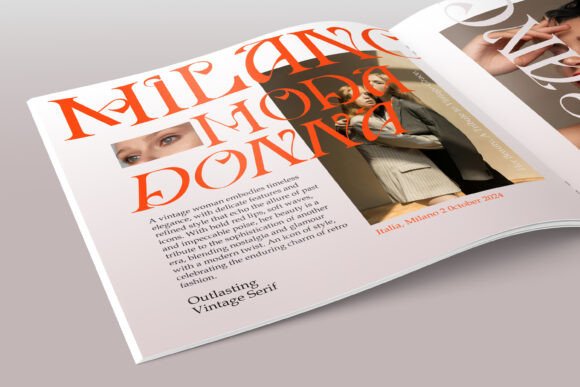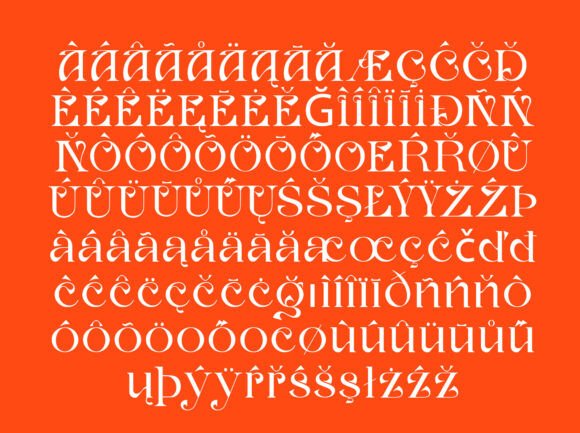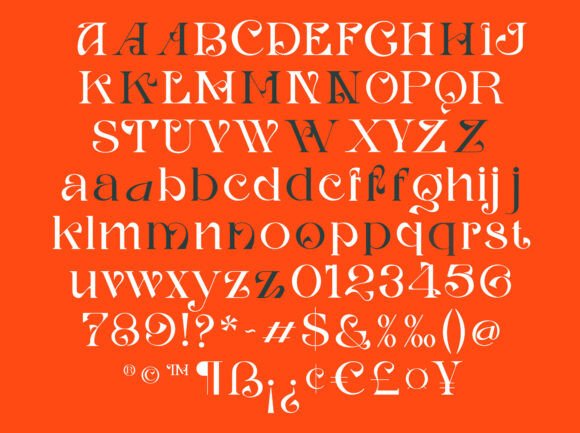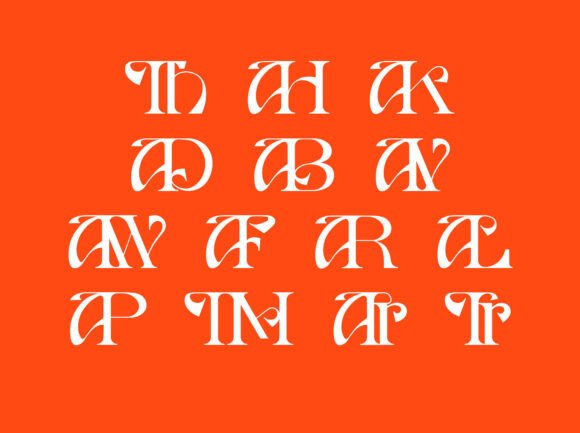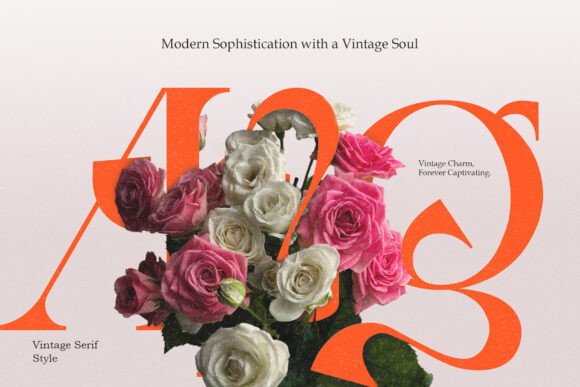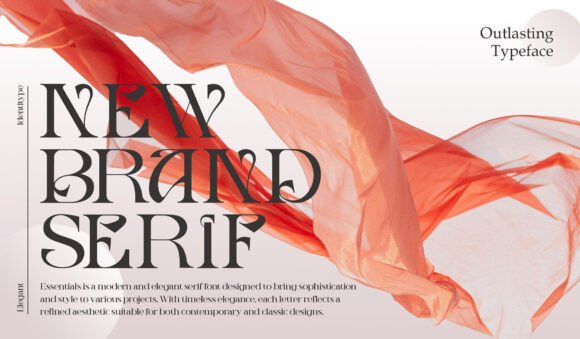
Introduction to Outlasting Font
Remember that moment when you’re brainstorming ideas for a new project, and the perfect font suddenly pops into your head? That feeling of excitement and inspiration is exactly what the Outlasting Font is designed to evoke. This stunning, vintage-inspired modern serif font is the result of meticulous craftsmanship by Myron Studio, and it’s about to revolutionize the way you approach your creative projects.
As a valuable resource for designers, the Outlasting Font offers a unique blend of classic charm and contemporary sophistication. Its refined curves and distinctive character make it an ideal choice for branding, invitations, editorial layouts, and more. Whether you’re aiming to create striking headlines or memorable branding, this font ensures your message resonates with elegance and style. With its timeless appeal, the Outlasting Font is sure to elevate your designs and leave a lasting impression.
Key Features of Outlasting Font
- Supports a wide range of languages, ensuring global appeal and versatility.
- Includes a range of weights and styles, providing designers with flexibility and creative freedom.
Honest Review: Outlasting Font
I recently stumbled upon the Outlasting Font, and I must say it’s been a game-changer for my creative projects. The design resource boasts a high-quality, modern aesthetic that’s perfect for anything from logos to digital art.
- ✨ The font is incredibly versatile, with a wide range of styles and weights to choose from.
While the Outlasting Font is a fantastic resource, there are a few limitations to consider:
- ⚠️ The font may not be suitable for very small text sizes, as the lines can become quite thin.
- ⚠️ Some users may find the font’s modern aesthetic a bit too trendy, limiting its long-term appeal.
Overall, I’m thoroughly impressed with the Outlasting Font. Its high-quality design and flexibility make it an excellent choice for any creative project. Whether you’re a seasoned designer or just starting out, this font is definitely worth checking out.